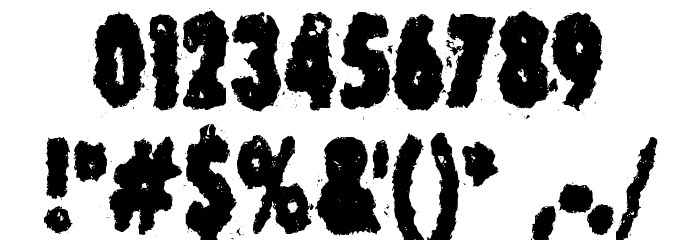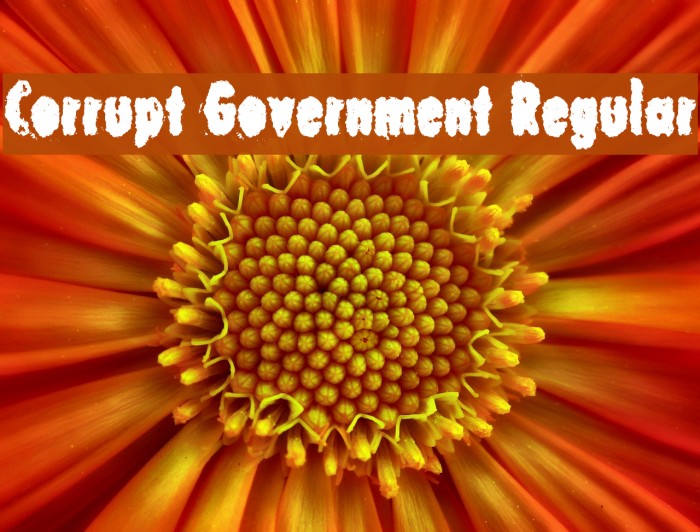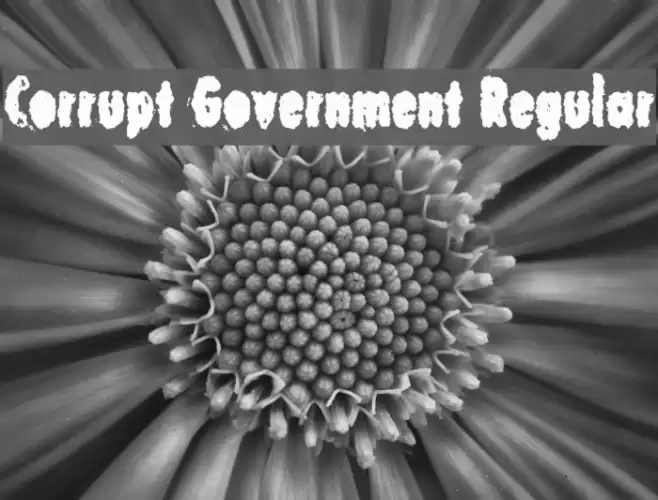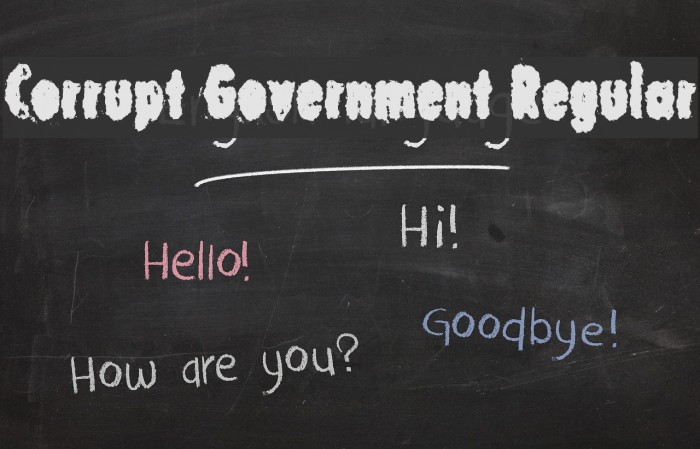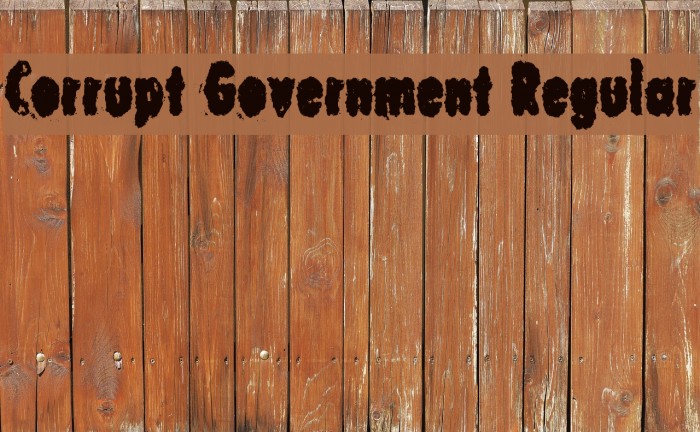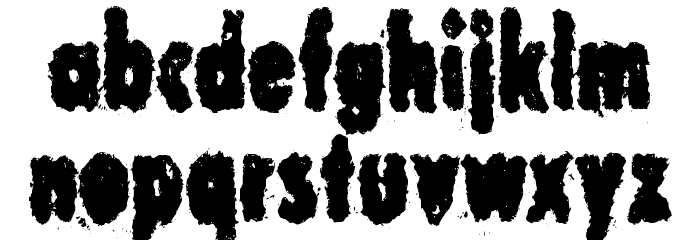
Corrupt Government Regular Font
Corrupt Government Regular Description
This font features a distressed, grungy appearance with uneven edges and a textured look, reminiscent of worn-out or decayed materials. The characters are bold and have a rough, organic feel, making them stand out with a unique, rebellious style. The uppercase and lowercase letters maintain a consistent weight, while the numbers and special characters follow the same rugged aesthetic. This font is ideal for projects that require a bold statement or an edgy, unconventional vibe.
| Overall Style | Grunge, Edgy, Rebellious |
| Use Case | Headlines, Posters, Artistic Designs |
| Proposed Projects | Ideal for album covers, posters, street art designs, and any project needing a bold, edgy aesthetic. |